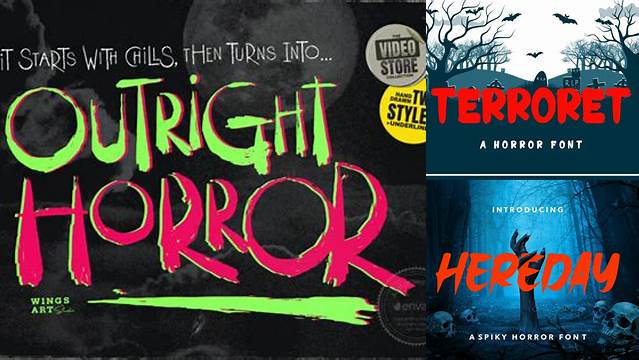
Outright Horror Font: Free Download Guide For Spooky Designs
Are you ready to give your designs a spine-chilling makeover? Looking for a font that screams horror, suspense, and all things spooky? Well, look no further! We're diving deep into the world of the Outright Horror font, exploring its features, uses, and, most importantly, how you can snag a free download! This comprehensive guide will equip you with everything you need to know to unleash the darkness in your creative projects.
1. Unveiling the Outright Horror Font: What Makes it Tick?
Guys, let's be honest, a font can make or break a design, especially when you're aiming for that eerie, unsettling vibe. The Outright Horror font is designed to do just that. It’s a typeface specifically crafted to evoke feelings of dread, fear, and all things macabre. This font typically features jagged edges, dripping effects, and a generally distressed appearance, mimicking the look of something aged, decayed, or maybe even… haunted! Its bold and often uneven strokes are perfect for conveying a sense of unease and chaos, making it a top choice for any project with a horror theme. If you're designing a poster for a spooky movie night, creating graphics for a Halloween party, or even working on a novel with a dark storyline, the Outright Horror font is your go-to tool. The designers behind this font pay close attention to every detail, from the way the letters connect to the subtle imperfections that add to its overall effect. The goal is not just to create a font, but to build a visual experience that complements your terrifying narrative. The style is versatile. It is capable of adapting to many styles. Whether you want a classic horror feel or a more modern, abstract approach to the genre, this font will help you achieve your desired aesthetic. Remember, the devil is in the details. Look for fonts that have multiple variations, allowing you to experiment with different styles and find the perfect match for your project. That is how the Outright Horror font really stands out from the crowd.
3. Outright Horror Font: Perfect for Your Spooktacular Projects
Let's explore the exciting ways you can use the Outright Horror font! This font is a true chameleon, adapting itself to various projects. From posters and flyers to website graphics and social media posts, this font is a creative tool. Think of movie posters for horror films, where the title and key information are often presented in a way that immediately grabs the viewer's attention. Or, imagine creating invitations for a Halloween party, with the font setting the tone for the night's frightful fun. If you are a game developer, this font is a great asset. You can use it in the title screens, in-game text, and even for promotional materials to give your games a genuinely immersive horror atmosphere. The bold, dramatic style of the font adds an element of authenticity to the gaming experience. Authors can use the Outright Horror font to design book covers and chapter titles. The font's unique style communicates to the reader the genre and mood of the book. Bloggers and content creators can also use this font for creating eye-catching graphics. Use it in your thumbnails for YouTube videos about horror films. This can instantly grab the attention of your audience and set your content apart. For those of you who are into graphic design, this font is fantastic. You can use it to create logos for horror-themed businesses or merchandise. Be sure to pair the font with suitable colors and imagery to amplify its effect. Your creativity is the only limit.
4. Outright Horror Font Styles and Variations: Exploring the Possibilities
One of the great things about the Outright Horror font is the potential for variations. While the core style remains consistent – the jagged edges, the dripping effects, the general sense of unease – designers often create different versions to give you even more creative control. These variations might include different weights (bold, regular, light), different letter styles, or even additional special characters. Some fonts have a weathered or distressed look, giving the appearance of aged or worn text. This is great if you want a vintage horror feel. Other variations might feature a more modern, sleek design. This style adds a contemporary edge to your projects. When you are browsing for fonts, pay attention to the number of variations included. Having multiple options allows you to fine-tune your design, experimenting with different looks until you find the perfect match. The right font style can affect the overall tone of your work. A bolder, more aggressive font might be perfect for a slasher film poster, while a more subtle, elegant font might be better suited for a gothic novel. It is a matter of understanding your project's needs and choosing accordingly. Always consider what the font is saying about your work, and ensure that its style is in sync with your ideas. So when searching for your free Outright Horror font download, be sure to check for available styles.
6. Customizing Your Outright Horror Font: Tips and Tricks
Once you've got your Outright Horror font installed, it's time to unleash your creativity! While the font itself has a lot of character, you can further customize it to match your specific needs. Experiment with different colors to create an appropriate tone for your projects. Consider using dark, moody colors, such as deep reds, purples, greens, and blacks. Think about how the color evokes specific emotions. For example, red can symbolize blood and danger, while purple evokes mystery and the supernatural. In addition to color, you can also play around with text effects, such as drop shadows, outlines, and glows, to enhance the font. A well-placed shadow can add depth, while an outline can make the font more legible against a busy background. Text effects are an easy way to give the font a unique look. Another way to customize your font is to modify the spacing between the letters. Tighten the spacing to create a more claustrophobic feel, or spread the letters to give your designs a sense of openness. All of these adjustments can be easily done in your design software. The possibilities are endless! Experimenting with these techniques will give you a font that perfectly matches the look you're aiming for. To create a spooky design that stands out, consider combining several of these customization techniques. It is your chance to create a font that is unique to you.
7. Combining the Outright Horror Font with Other Design Elements
The Outright Horror font is a fantastic tool on its own, but it truly shines when combined with other design elements. Think about the overall composition of your design. You can create a cohesive look by strategically choosing backgrounds, imagery, and other fonts. A distressed paper texture, for instance, can create an aged look. This complements the font perfectly. Combine the font with imagery that complements the horror theme. This could include anything from shadowy figures and creepy landscapes to elements like bats, cobwebs, and skulls. Use the imagery to help tell your story. You can create a visually compelling design by using the right combination of images and fonts. When you are creating, consider using a secondary font to complement the Outright Horror font. Choose a font that offers a contrast to the horror aesthetic. This could be a clean, minimalist font for body text. Try to achieve a balance between the two fonts. If your horror font is the star, use the second font to provide the supporting role. Try not to overload your design with too many elements. A minimalist approach can often be more effective than an overly busy one. So keep your message clear and concise. By carefully combining these elements, you can create a design that grabs attention and perfectly sets the tone.
8. Outright Horror Font for Movie Posters: Setting the Scene
Movie posters are the perfect playground for the Outright Horror font. The goal of a movie poster is to hook the audience, giving them a glimpse of what the film is about. The font you use is the first step in creating this intrigue. The bold, chilling style of the Outright Horror font immediately tells the viewer what they can expect. It sets the tone of the film right away. The font adds to the overall effect when used in combination with other elements. Use the poster to evoke feelings of dread and suspense. Consider the film's genre, and let that guide your choices. Slasher films might benefit from a more aggressive font with sharp edges. Gothic horror films might look better with a slightly more elegant, yet still unsettling, font. Don't be afraid to experiment! Play with different sizes, colors, and text effects. A strategically placed drop shadow or glow effect can enhance the font's impact. This could be all it takes to grab the viewer's attention. The choice of the font can create a captivating poster. That is why the Outright Horror font is such an effective tool. The goal is to intrigue the audience, entice them to want to know more, and get them excited to see the film.
9. The Outright Horror Font for Halloween Party Invitations
Halloween is all about setting the mood, and what better way to do that than with the Outright Horror font? It's ideal for designing invitations that scream Halloween. This font can immediately establish the theme, making your guests excited for the event. Using the font on your invitations is a great way to make an impact. This creates excitement, getting guests to the party! Design invitations that give off a scary tone! Consider using colors like orange, black, and purple, combined with imagery of pumpkins, ghosts, and other spooky elements. Don't be afraid to get creative with your text. Consider using phrases like "Enter if you dare" or "Join us for a night of fright". These phrases add a sense of anticipation. If you are designing an invitation for an adults-only party, you may want to use a more mature, sophisticated version of the font. This makes the design even more compelling. This font will enhance your event, creating a fun and memorable experience. By using the Outright Horror font, you're not just sending an invitation. You're setting the stage for a night of frightful fun.
10. Outright Horror Font: Tips for Readability and Legibility
While the Outright Horror font is designed for aesthetics, it's important to consider readability. Horror fonts are known for their unique appearance, which sometimes impacts their legibility. It is possible to optimize readability while maintaining the horror aesthetic. Make sure that your font is legible. Use the font in a way that's easy to read. Keep the font size large enough. It should be easy to see, even from a distance. When you use the font, consider the background you're using. Ensure that the contrast is high enough for easy reading. Avoid using the font on overly detailed backgrounds. The text should be clear and prominent. To enhance readability, use strategic text effects, such as drop shadows and outlines. These effects help the text stand out from the background. Also, avoid using too much text with the font. The font can be used to add a dramatic effect. However, for larger blocks of text, opt for a font with greater clarity. Remember that the goal is to convey your message. Your design should be easy to read so that your message gets across. With careful planning, you can make your design easy to read while adding a spooky effect.
11. Outright Horror Font on Social Media: Creating Viral Content
Social media is a visual world, where the Outright Horror font can make a big impact. It's a tool to make your content stand out in the flood of posts. Use the font to grab the attention of your audience. Consider the different platforms and choose the right one for your content. The font's unique style can be an asset on social media, helping you create content that is memorable. This can lead to increased engagement and shareability. When creating posts, use the font to create eye-catching headlines, quotes, and graphics. The font can be used for memes, or even short videos. These techniques can boost the value of your social media posts. To boost the impact of your posts, consider the use of other horror-related elements, such as imagery and colors. If you're promoting a horror movie, for example, you might use the font in combination with a dark, ominous background. This creates a more immersive effect. To enhance the effect, consider using the font for quotes and hashtags. If your content is compelling, it can create a viral effect. Be aware of the specific requirements of each platform. This will help you optimize the content. Use the Outright Horror font strategically to maximize your reach. This can help your content go viral!
12. Outright Horror Font and Graphic Design Principles: A Perfect Match
The Outright Horror font is a great tool for graphic designers. However, understanding the design principles is key to making it work effectively. This involves paying attention to typography, layout, color, and imagery. Consider the different styles. The font pairs well with various techniques to give it a unique visual flair. The right combination will grab the audience's attention. Make sure that the design is clear and the message is easy to understand. A well-designed layout can make the message more effective. Take the time to learn about graphic design principles. This will help you to use the font effectively. Use the font to create a sense of tension, adding a spooky and eerie vibe. This is what the font is for. Use the font to create designs that stand out. Combine it with other elements, such as imagery and color. A design that integrates the font seamlessly will always make the message much more powerful. With this knowledge, you can create visually stunning designs.
13. Outright Horror Font in Web Design: Making a Statement
Web design is all about capturing the user's attention, and the Outright Horror font is the perfect tool for doing just that. It can be used to make a bold statement on your website. The font is ideal for creating a website that is dedicated to a specific niche. Create a website that grabs the user's attention and sets the tone immediately. However, ensure that the font is used in a way that enhances usability. This means balancing creativity with clarity. Do not overuse the font, so that it does not distract from your message. Make sure that the text is readable and the design is easy to navigate. Consider using the font for headlines, navigation menus, and other key elements. A well-designed website using the Outright Horror font can grab the attention of the user. Use the font to set the tone. By following best practices, you can create a website that is both visually stunning and highly effective.
14. Outright Horror Font for Book Covers and Titles: A Terrifying Read
Book covers are crucial to the success of a book, and the Outright Horror font is perfect for creating a striking first impression. You can use the font to design a book cover that will grab attention. The font instantly tells the reader what the book is about, making it the perfect tool. The font can also be used in the title to convey the genre. A well-designed title will entice readers to find out more. The font can also be used to add a dramatic effect to your design. This will make the book appear spooky and intriguing. You can use the font for all sorts of designs, such as chapter headings and page layouts. Choose a font that complements the overall theme of the book. A good design will make it more likely that people will read the book. The font can also be used to add a sense of suspense. It can entice people to read the book. Use the font to create a perfect book cover and a more intriguing title.
15. Outright Horror Font and Branding: Creating a Unique Identity
Branding is more than just a logo. It's the process of creating a distinct identity for your business. The Outright Horror font can be a powerful tool in this process. This font will make your brand stand out. Use the font to give your brand a unique personality. The font will set your brand apart from the competition, making it instantly recognizable. Combine the font with other branding elements to create a cohesive brand identity. When building a brand, remember that the brand identity will affect everything, from your website to your social media profiles. Use the font to design a logo, giving it a striking visual appeal. This is great for a horror-themed business or a haunted house. Consider the overall message of your brand and ensure the font aligns with it. A well-designed brand will stay in the mind of the audience. With this, you can enhance the brand's identity and get more people interested.
16. The Psychology of the Outright Horror Font: Eliciting Emotions
Fonts have the power to evoke emotions, and the Outright Horror font is no exception. It is designed to elicit feelings of dread and fear. The font's style can affect how a person feels when they look at a piece of design. The jagged edges, dripping effects, and distressed appearance all contribute to the sense of unease. The font can make the audience feel scared or tense. This can make the audience more engaged with the content. The font can also be used to enhance the theme. The font will set the tone of a film, book, or even a website. The font plays a major role in the perception of the message. The font is an important tool for the designer. Designers can create content that resonates with the audience. The designer must consider the emotions they want to elicit. This can be done by experimenting with colors, layouts, and other visual elements.
17. Outright Horror Font: Typography Best Practices for Designers
To get the most out of the Outright Horror font, designers need to keep in mind the best practices for typography. Consider the readability of your design and the font. Make sure that the font is easy to read. Avoid using the font for large amounts of text, as it can be difficult to read. Use the font strategically. You can use the font for headlines and titles. Choose the right size and spacing. You need to find the optimal size and spacing for the font. This ensures that the text is easy to read. Another thing to consider is the background. You need to make sure the background contrasts with the font. This allows the text to stand out. A good designer also understands the use of negative space, which is the area around text and images. Using negative space will prevent your design from looking cluttered. By following these tips, designers can use the font to its full potential.
18. Outright Horror Font for Gaming: Immersive Experiences
The gaming industry has seen explosive growth in recent years, and the Outright Horror font is an effective tool. It can create a genuinely immersive experience. The font will give the player a deep sense of suspense. If used well, the font will add a level of depth to your games. This is the most effective tool for game developers who need to create a unique experience for players. The font will enhance your games. Use the font for game titles, menus, and other key elements. This will create a creepy and scary environment. The font will make your games more thrilling and entertaining.
19. Outright Horror Font and the Art of Horror: Creative Inspiration
The Outright Horror font is not just a tool. It's a source of creative inspiration. Use the font to stimulate the imagination and provide new ideas. The font is a constant reminder of the art of horror. You can draw inspiration from the font to create compelling content. The font can also inspire creative projects. Use it to create a horror film, write a short story, or even create a work of art. The font can also inspire writers, artists, and filmmakers. The font is a reminder of the wide world of horror, where creativity and originality are a must. By using the font, you will find yourself creating the most unique piece of work.
20. The Evolution of Horror Fonts: From Classic to Contemporary
The Outright Horror font has its own history. It is a part of the evolution of the horror genre. The fonts have evolved over time, with classic styles. The fonts draw from the history of horror, like the Universal monsters of the 1930s and the Gothic literature of the 19th century. Contemporary fonts are more modern and innovative. These fonts also incorporate unique visual styles. With the rise of technology, horror fonts are still being innovated. The font has adapted to new styles, allowing for more unique art pieces. Horror fonts are still an active area of creativity, with new designs appearing every year. The Outright Horror font is a great piece of innovation and is part of the overall evolution.
21. Outright Horror Font: Troubleshooting Common Issues and Solutions
Sometimes, you might encounter issues when using the Outright Horror font. Be aware of these problems. You may face a few issues when using the font. Check the installation. Make sure the font is installed correctly on your system. If you're having trouble, try reinstalling the font. Font rendering issues might also come up. These can result in the font appearing differently. These issues can often be fixed by updating your design software or your operating system. If the text is hard to read, this is likely due to the size and the contrast. To fix this, you can increase the font size or adjust the text color. You can also enhance the readability of your content by using clear backgrounds. By understanding the problems and the solutions, you can use the Outright Horror font to your advantage.
22. Outright Horror Font and Web Accessibility: Inclusive Design
Accessibility is important for web design, and it is especially important when using the Outright Horror font. Make sure that people with disabilities can access your website. One important aspect is ensuring that the font is readable for people with visual impairments. This can be done by increasing the font size and making sure there is enough contrast between the text and the background. You should also avoid using the font for large amounts of text. Instead, use it for headlines and titles. It is important to have a clear and easy-to-understand design. This will make your site accessible to all users. Consider providing an alternative text for images. This will help people with screen readers understand your website. By considering accessibility, you can reach a wider audience. With these tips, you can create a website that's accessible and inclusive for everyone.
23. Outright Horror Font for Merchandise: Spreading the Fear
The Outright Horror font is perfect for creating merchandise. You can design items that let people showcase their love for horror. You can create a wide range of products, such as t-shirts, mugs, and posters. This allows you to reach a wider audience. Use the font to create visually compelling designs. This will attract customers. Make sure your merchandise is high-quality and visually appealing. Consider your target audience. Tailor your designs to their interests. The font can be used in conjunction with other designs. Use elements such as skulls, bats, and other horror-themed items to attract attention. By using this method, you can create a successful merchandise line.
24. Legal Considerations: Copyright and the Outright Horror Font
When using the Outright Horror font, it's important to consider legal aspects. Check the copyright information to ensure you can use the font. Make sure you are using it in accordance with the license agreement. The license determines how you can use the font, and you must stick to it. Some fonts are free for personal use, while others require a commercial license. Before you download and use the font, make sure you understand these requirements. If you are using the font for commercial use, make sure you have a commercial license. This protects you from legal problems. Copyright law is a complex subject. When in doubt, seek legal advice. You can protect your work. By following these guidelines, you can use the font legally.
25. Outright Horror Font: The Future of Horror Typography
The Outright Horror font will evolve over time. The evolution will continue to impact the design and style of horror. Expect to see more innovative and unique designs in the future. Technology will continue to shape the landscape of typography. This is an exciting period for designers. The font will evolve with the rise of new technology. Expect to see more experimentation and new approaches to design. Designers and creators are constantly pushing boundaries and exploring new directions. The Outright Horror font will inspire others, leading to innovation. This will have a major impact on the world of design.
26. Outright Horror Font for Video Editing: Creating Spine-Chilling Titles
Video editing is a perfect place for the Outright Horror font. It allows you to create chilling titles. The font is ideal for creating an atmosphere of suspense, as it is an effective tool for creating video content. Make sure that the font aligns with the theme. Use it to create a memorable and terrifying effect. You can use the font for title sequences, credits, and even to highlight moments in the video. When using the font, consider the other elements. Use colors, effects, and other visual components to help make the video more intense. Experiment with the different effects to enhance the impact of the font. The font will help enhance the impact of your videos. Use the Outright Horror font and make sure your audience remembers your work.
27. Outright Horror Font in E-books and Digital Publications: Setting the Tone
E-books and digital publications offer a great place to use the Outright Horror font. You can use the font to create an immersive experience. The font can be used in multiple ways. From the book cover, chapter titles, and even within the text itself. When choosing the font, it is important to consider readability. Make sure that it is clear and easy to read on different devices. The key is to provide an immersive and engaging experience. Use the font for chapter titles, quotes, and other key elements. The font will enhance the reader experience. You can use the font and the other elements to set the tone. The font will immerse the audience.
28. Outright Horror Font: Community and Resources for Font Enthusiasts
The Outright Horror font is used by a huge community. You can connect with other fans and experts. There are many online forums and communities. These places are great for sharing ideas and getting inspiration. Many websites and social media groups are dedicated to typography and graphic design. You can find a plethora of resources and inspiration. Learn from other designers' experiences and get assistance. The community can help you with any problem. Joining a community is a great way to learn and improve your design skills. The community will give you the chance to showcase your talent. You can expand your knowledge and creativity by interacting with others. Engage with other font fans. Use the Outright Horror font as a source of community.
29. The Art of Pairing: Matching the Outright Horror Font with Other Fonts
The Outright Horror font looks great on its own. It really shines when you pair it with other fonts. Consider the overall design of your piece. Complement the Outright Horror font with a font that creates contrast. You can choose a clean sans-serif font for body text. This creates a more balanced design. Be sure that all fonts go well together. Pair a bold title with a simpler body text. Create a hierarchy. The goal is to provide easy-to-read content. This gives your design more appeal. The most important thing is to have a balance. This makes for a good experience.
30. Conclusion: Unleash Your Creativity with the Outright Horror Font
There you have it, folks! Everything you need to know about the Outright Horror font. From its chilling aesthetic and versatile applications to the secrets of a free download, you're now equipped to create your own spine-tingling designs. So go forth, embrace the darkness, and let your creativity run wild. Whether you're crafting a terrifying movie poster, designing a spooky Halloween invitation, or simply experimenting with typography, the Outright Horror font is your ultimate weapon. Don't be afraid to experiment, break the rules, and push the boundaries of your creativity. Happy designing, and may your creations be terrifyingly awesome!